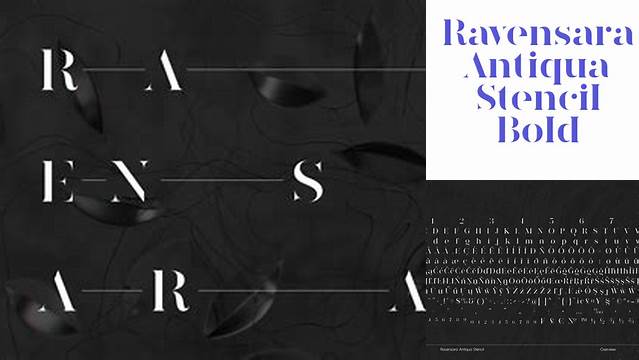
The Allure of Ravensara Antiqua Stencil Font
The Ravensara Antiqua stencil font, guys, is a real gem in the world of typography. Itâs got this vintage, almost military-inspired vibe that just screams character. If youâre looking to add a touch of historical gravitas or a rugged, industrial feel to your designs, this font is seriously your go-to. What makes it so special? Well, itâs the classic stencil cuts combined with an antiqua-style base that creates this unique blend of old-world charm and modern usability. Itâs not just about looking good; itâs about conveying a message, a story, a sense of place and time. Imagine using it for posters, branding for a craft brewery, or even just to add a bit of flair to a personal project â it instantly elevates the design. The versatility is key here, and the Ravensara Antiqua stencil font offers a surprising amount of it, considering its distinctive style. Itâs the kind of font that makes people stop and look, making your work more memorable. Weâre going to dive deep into why this font is a must-have and how you can snag it for your next project, all for the sweet price of free.
Understanding Stencil Fonts: A Designer's Best Friend
Stencil fonts, in their essence, are designed to be cut out or printed through a stencil. This means they have those characteristic breaks or gaps within the letterforms, ensuring that a part of the letter doesnât fall out when youâre, you know, actually stenciling. Itâs a practical design element that has evolved into a powerful aesthetic choice. Think about old shipping crates, military markings, or even street art â the stencil effect is instantly recognizable and brings with it a certain grit and authenticity. But the Ravensara Antiqua stencil font takes this a step further. It doesnât just mimic the stencil look; it incorporates it into a more refined, antiqua-style typeface. This fusion creates a look that's both rugged and sophisticated, a combination thatâs surprisingly hard to find. When youâre choosing a font, youâre not just picking letters; youâre choosing a personality for your brand or project. Stencil fonts, and particularly this one, bring a personality thatâs bold, distinctive, and undeniably cool. Theyâre perfect for projects that need to stand out from the crowd and communicate a sense of history, resilience, or raw energy. Itâs about making a statement without shouting, and thatâs where the magic of a well-executed stencil font truly shines. Weâll explore how this unique characteristic of stencil fonts enhances designs.
Why Ravensara Antiqua is a Top Choice for Designers
So, why all the fuss about Ravensara Antiqua? Guys, this font is a game-changer for several reasons. First off, its versatility is off the charts. While it has a strong stencil aesthetic, itâs remarkably adaptable. You can use it for headings, logos, packaging, and even body text if youâre going for a very specific, impactful look. It bridges the gap between vintage charm and modern design sensibilities, making it suitable for a wide array of projects. Think about historical reenactment materials, artisanal product branding, or even contemporary graphic design that needs a touch of raw character. The legibility is another major plus. Despite the stencil cuts, the letterforms are clear and well-defined, ensuring that your message gets across without any confusion. This is crucial, because a font can look amazing, but if itâs unreadable, itâs a no-go. Ravensara Antiqua strikes that perfect balance. The aesthetic appeal is undeniable. It evokes a sense of history, durability, and a touch of rebellion. Itâs the kind of font that adds depth and personality, making your designs more engaging and memorable. Whether you're designing a poster for a music festival, branding for a coffee shop, or creating a unique website, Ravensara Antiqua can give it that extra edge. Itâs about creating a visual identity that resonates with your audience, and this font definitely knows how to make an impression. Weâll delve into the specific design elements that make it so effective.
Exploring the Unique Characteristics of Ravensara Antiqua
Letâs get down to the nitty-gritty, the stuff that makes Ravensara Antiqua truly stand out. The core of its appeal lies in its hybrid design. Itâs not purely a stencil font, nor is it a standard antiqua. Itâs this masterful blend that gives it its unique personality. The antiqua base provides a certain elegance and readability, while the stencil cuts introduce that raw, industrial, and historical vibe. This combination is what designers have been searching for â a way to have both grit and class in a single typeface. Think about the contrast: the smooth curves and serifs of an antiqua typeface are interrupted by the sharp, clean breaks of the stencil technique. It creates a visual tension thatâs incredibly captivating. Furthermore, the letterform construction is meticulously done. Each character has been carefully crafted to ensure that the stencil breaks don't just look like random cuts, but rather intentional design elements that enhance the overall form. This attention to detail is what separates a good font from a great one. The weight and spacing are also well-balanced, making it comfortable to read even in larger blocks of text if used strategically. Itâs not overly condensed or expanded, offering a natural reading rhythm. The overall impression is one of authenticity and a deep understanding of historical typography, reinterpreted for today's design landscape. Weâll talk more about how these characteristics translate into practical design applications.
Tips for Using Ravensara Antiqua in Your Design Projects
Now that youâve got the Ravensara Antiqua stencil font installed, letâs talk about making it work wonders in your projects. This font, guys, has a distinct personality, so using it thoughtfully is key. Headings and titles are where it truly shines. Its bold stencil nature makes it perfect for grabbing attention. Use it for main titles, subheadings, or even short, impactful phrases. It adds an instant dose of character and a vintage or industrial feel. Logos and branding are another fantastic application. If your brand is about heritage, craftsmanship, or a rugged aesthetic, Ravensara Antiqua can be a core part of your visual identity. Consider how it pairs with simpler, cleaner fonts for balance in your branding. Packaging design can really benefit from its unique look. Imagine it on craft beer labels, artisanal food products, or even on sturdy cardboard packaging â it screams quality and authenticity. For poster design and flyers, itâs a dream. Whether itâs for a music event, a film, or a community announcement, this font can lend a powerful, eye-catching element. However, be mindful of legibility in body text. While it can be used for longer texts, itâs best suited for shorter paragraphs or specific highlighted sections where its stencil effect won't hinder readability. Consider using it sparingly for emphasis rather than as your primary text font. Pairing it with other fonts is also crucial. Combine Ravensara Antiqua with sans-serif or serif fonts that have a more neutral or classic feel to create a balanced design. This contrast will allow the stencil font to pop without overwhelming the overall composition. Remember, the goal is to use its unique characteristics to enhance your message, not detract from it. Weâll explore creative pairings.
Creative Pairing Ideas with Ravensara Antiqua
Pairing fonts is like matchmaking for your designs, and Ravensara Antiqua stencil font, with its strong personality, needs the right partners to truly shine. You donât want to just throw any font at it; you want complementary types that create harmony and enhance its unique stencil vibe. So, what works well with this rugged beauty, guys? Clean, minimalist sans-serifs are your safest and often most effective bet. Think fonts like Lato, Open Sans, or Montserrat. These fonts have a clean, neutral presence that allows Ravensara Antiqua to be the star of the show. Use the sans-serif for body text or supporting information, letting the stencil font command attention in headlines or key elements. It creates a fantastic contrast between the bold, textured feel of Ravensara Antiqua and the smooth, modern simplicity of the sans-serif. Another great option is pairing it with classic serif fonts. Fonts like Garamond, Times New Roman (though maybe a more modern serif interpretation), or Playfair Display can offer an elegant counterpoint. This combination works exceptionally well if youâre aiming for a design that blends historical gravitas with a contemporary edge. The serif provides a sense of tradition and sophistication, while the stencil font adds that raw, historical punch. For a more industrial or grunge aesthetic, consider pairing Ravensara Antiqua with other textured or distressed fonts, but use these sparingly. The key here is balance; you donât want the design to become too chaotic or unreadable. A simple, bold slab serif could also work well, reinforcing the strong, blocky feel of the stencil font. Ultimately, the goal is to create a visual hierarchy and ensure that each font serves its purpose without clashing. Test out different combinations to see what best communicates your message and fits the overall mood of your project. Weâll look at specific design contexts.
Ravensara Antiqua for Branding and Logo Design
When it comes to branding and logo design, guys, a font can make or break your entire identity. The Ravensara Antiqua stencil font offers a powerful and distinctive character that can be incredibly effective for certain brands. If your business or project leans towards themes of heritage, craftsmanship, military influence, or a rugged, outdoor lifestyle, this font is practically tailor-made for you. Imagine a craft distillery using it for their logo â it immediately conveys a sense of tradition and hard work. Or a vintage clothing store wanting to evoke a sense of nostalgia and authenticity. Ravensara Antiqua can be the cornerstone of such a visual identity. Key considerations for logo design include simplicity and scalability. While the stencil effect is cool, ensure it remains legible even at small sizes. You might need to simplify the stencil cuts slightly or use it in a way that emphasizes its overall shape rather than intricate details. For broader branding, think about how Ravensara Antiqua can be used across different touchpoints. Itâs perfect for headlines on your website, packaging labels, signage, and marketing materials. To ensure balance, pair it with a more neutral font for body copy and secondary information. This contrast helps the Ravensara Antiqua stand out without making the entire brand feel too niche or difficult to read. The impact of this font in branding is significant; it communicates durability, history, and a certain unapologetic boldness. Itâs a choice that signals confidence and a strong sense of identity. Think about brands that want to convey a story, a legacy, or a connection to the past â Ravensara Antiqua can help tell that story visually. Weâll discuss specific industry applications.